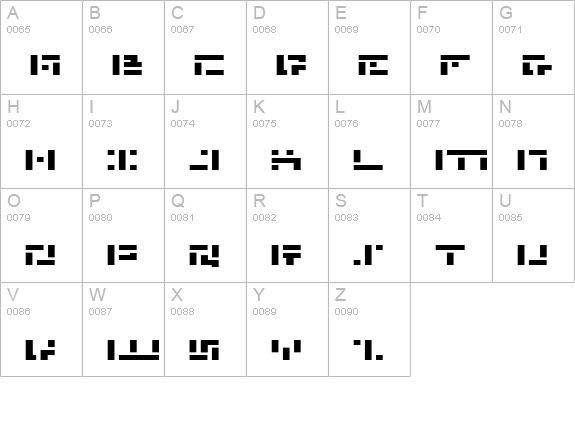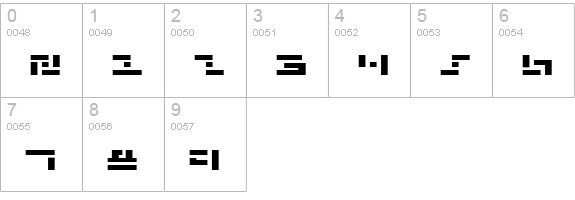
Missile Man Expanded is a distinctive, extended-width variant in the Missile typeface family \xE2\x80\x94 well suited to design and typography projects.
Missile Man Expanded font is a bold and dynamic typeface that exudes power and strength. Its sharp angles and sleek lines give it a modern and edgy look, perfect for making a statement in any design project. Whether you're creating posters, logos, or headlines, Missile Man Expanded font will grab attention and leave a lasting impression. The best part? This versatile font is available for free download at FontsMarket.com. Don't miss out on the opportunity to add Missile Man Expanded to your font collection and take your designs to the next level. Get your hands on this striking typeface today and unleash your creativity!